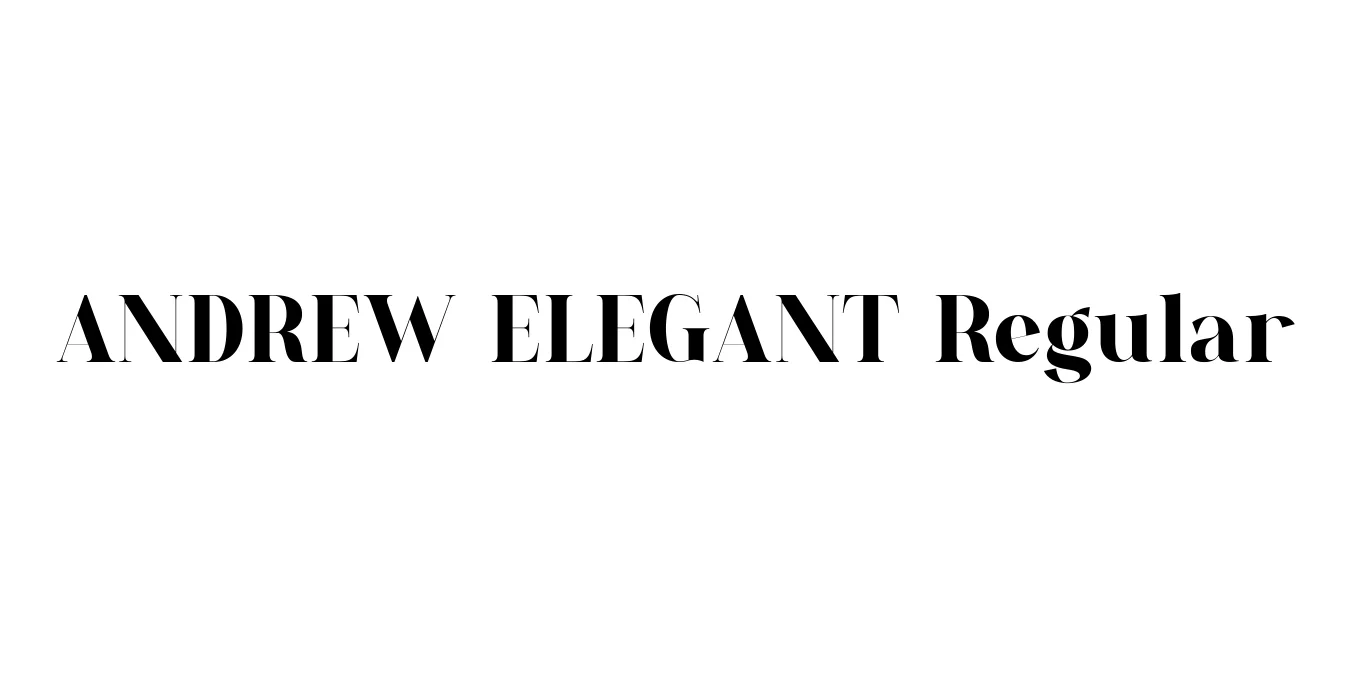
ANDREW ELEGANT Regular
ANDREW ELEGANT Regular is a sophisticated serif typeface that embodies timeless grace and modern refinement. Characterized by its sharp terminals, high-contrast strokes, and balanced proportions, this font is designed to bring an air of luxury to any creative project. The delicate curves and sturdy structures work in harmony to provide a reading experience that is both legible and visually striking.
Perfectly suited for high-end branding and editorial design, ANDREW ELEGANT Regular excels in contexts where style and professionalism are paramount. Whether utilized for wedding invitations, magazine headers, or logo design, it offers a versatile palette for designers seeking to evoke a sense of heritage combined with contemporary flair.
ANDREW ELEGANT Regular Best Uses
Ideal for creating luxury logos and high-end visual identities.
Perfect for sophisticated invitations, RSVP cards, and save-the-dates.
Suited for fashion magazine mastheads and elegant article titles.
Works exceptionally well for wordmarks in the beauty and jewelry industries.